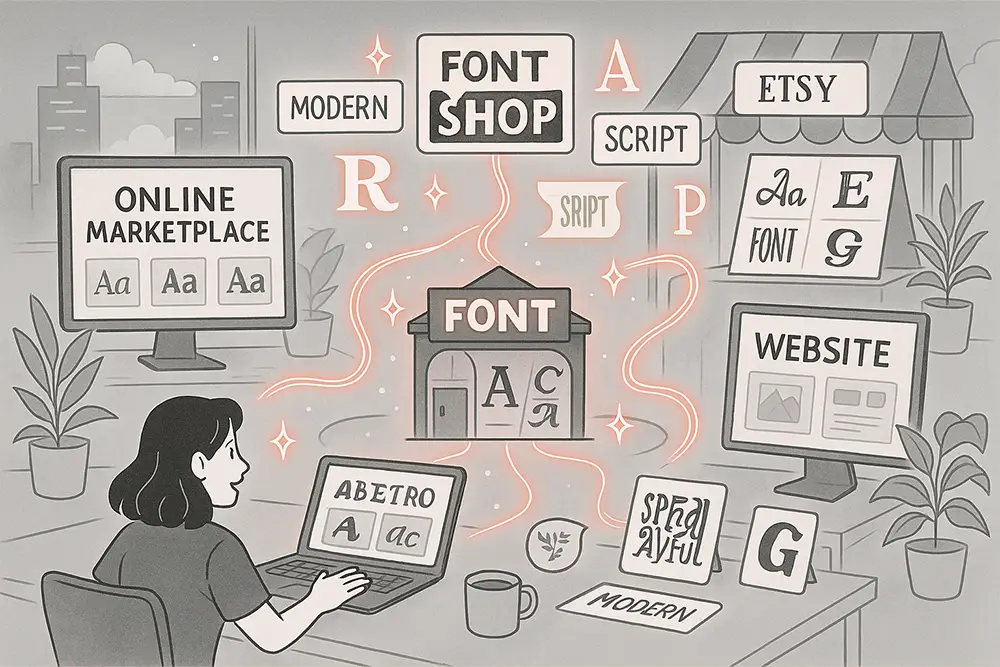
If you’ve ever Googled “sell fonts online,” you’ve probably felt the same headache most font creators face: too many platforms, too many rules, and no clear answer. Should you stick with Creative Market? Try Etsy? Or go big and set up your own website?
Here’s the truth: there’s no one-size-fits-all. The right platform depends on your font style, audience, and long-term goals. And the sooner you find clarity, the faster you can grow.
Creative Market is the “gallery” of premium fonts. Buyers come ready to invest in professional, high-quality typefaces. If your fonts have a polished, versatile style, this marketplace can amplify your exposure fast.
Fonts like Bygen – Modern Display Font fit perfectly here. Clean, futuristic, and professional, Bygen catches the eye of designers making bold brand statements.
Etsy thrives on emotional, niche-driven styles. Fonts that feel handcrafted, fun, or themed tend to dominate here. Buyers are often DIY creators, wedding planners, or small shop owners looking for fonts with personality.
Take Grow Boys – Not So Ordinary Display Font. Its quirky style makes it irresistible for Etsy audiences designing invitations, stickers, or product labels.
For example, Break Fridays – Clean Bold Script becomes more valuable when bundled with complementary fonts like Bolde – Powerful Sans Serif. You keep the upsell, not the marketplace.
To make this real, let’s map fonts from Figuree Studio to platforms where they shine best:
Grow Boys – Not So Ordinary Display Font
Aesthetic – Artistic Vintage Font
Each of these fonts tells a different story, but together they prove one thing: you must match your font style to the right marketplace.
External perspective: Envato’s blog shows how designers scale faster when they own their customer base, not just rent space on marketplaces.
Over time, one principle has guided our decisions: diversify first, own later. Start on marketplaces for exposure, then drive traffic to your own site for control and long-term growth.
As Seth Godin wisely said:
“Don’t find customers for your products. Find products for your customers.”
And when you’re ready to scale, remember Drucker’s timeless advice:
“The best way to predict the future is to create it.”
For font creators, that means building your brand, not just selling through someone else’s platform.
Selling fonts online doesn’t have to be overwhelming.
Don’t let decision paralysis stop you. Your fonts deserve the spotlight.
Don’t let these marketplace choices hold you back. Design with clarity, sell with confidence, and grow with freedom.